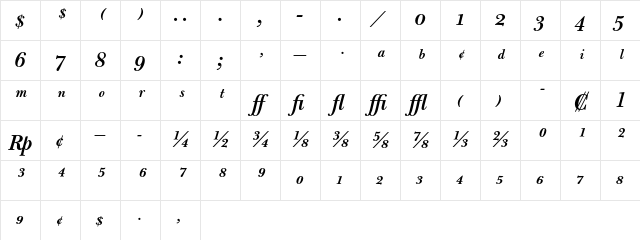
Complete Bulmer MT SemiBold Italic Expert glyph index. Displaying only characters natively supported by Bulmer MT SemiBold Italic Expert font.
Bulmer MT is a composed and adaptable typeface that performs quietly and consistently across a wide range of design contexts. The slanted form adds forward momentum and visual energy. Its bold stroke weight gives it real presence on the page.